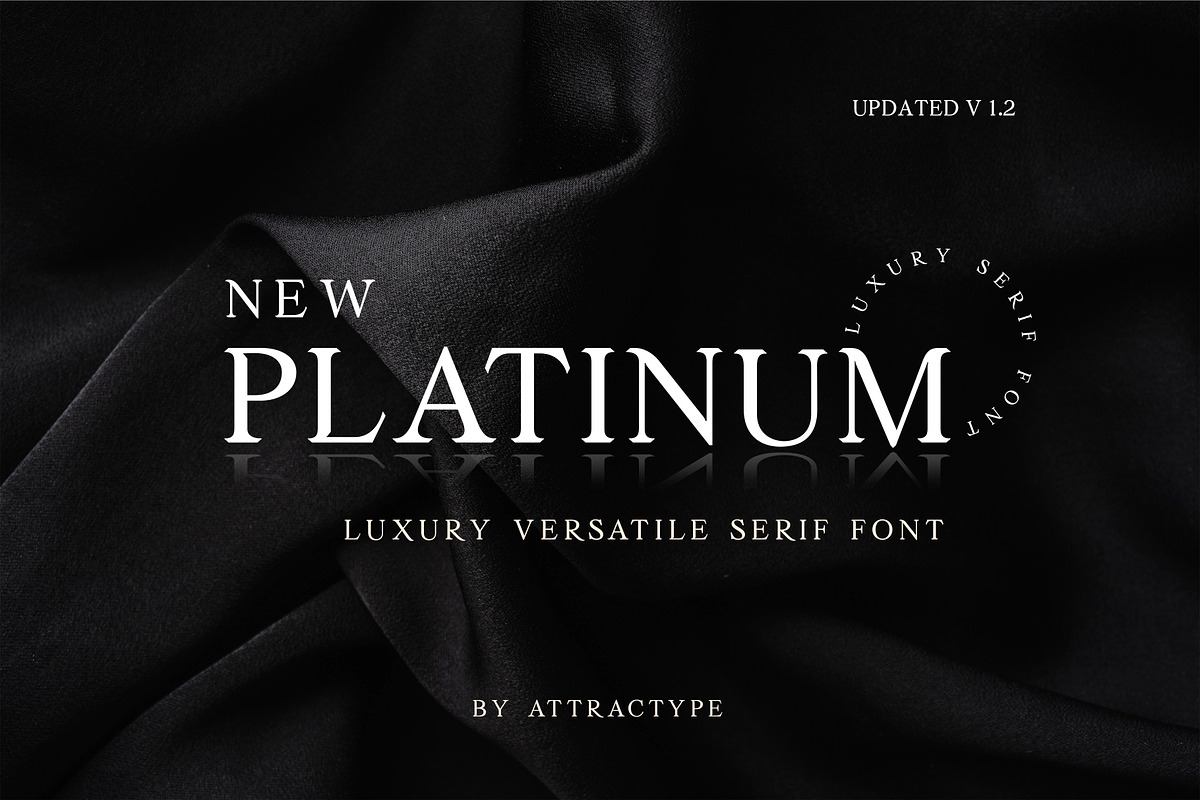
New Platinum - Luxury Serif Font Free Download
New Platinum - Luxury Serif Font Free Download is an elegant and refined typeface designed to add a touch of luxury and sophistication to your projects. With its sharp, classic serifs and modern design, this font is perfect for high-end branding, editorial design, invitations, and upscale product packaging.
The timeless style of New Platinum ensures readability while maintaining an air of exclusivity and class. Whether you're working on a luxury logo, creating a polished marketing campaign, or designing premium promotional materials, New Platinum brings professionalism and elegance to your typography.